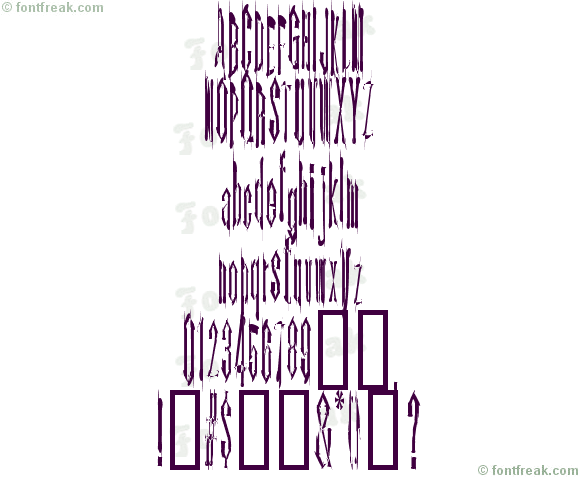
Kinderfeld
Kinderfeld, created by Astigmatic One Eye in 1996, is a unique display font that captures attention with its whimsical character. This freeware typeface features a distinctive design that blends playful elements with a touch of elegance, making it a versatile choice for various creative projects. The font exhibits a moderate stroke weight with slight contrast, giving it a balanced and approachable appearance. Its letterforms have a slightly irregular structure, adding a handcrafted feel that enhances its charm. The spacing is well-considered, ensuring legibility while maintaining a fun aesthetic.
Best suited for use cases such as children's book covers, party invitations, and creative branding, Kinderfeld brings a sense of joy and whimsy to any design. It can also be effectively employed in posters for local events or community activities, where a lighthearted touch is essential. Graphic designers, small business owners, and content creators will find this font particularly appealing as it allows for playful expression while remaining professional enough for various applications.
What sets the Kinderfeld font apart is its ability to evoke a sense of nostalgia and creativity. Its unique visual characteristics make it a standout choice for those looking to add personality to their designs. Whether you are crafting a modern marketing campaign or designing cheerful materials for a children's event, Kinderfeld promises to deliver a delightful and memorable impact. For anyone seeking to enhance their projects with a touch of whimsy, the Kinderfeld font free download is an excellent resource that will not disappoint. Embrace this charming font and let it inspire your next creative endeavor.